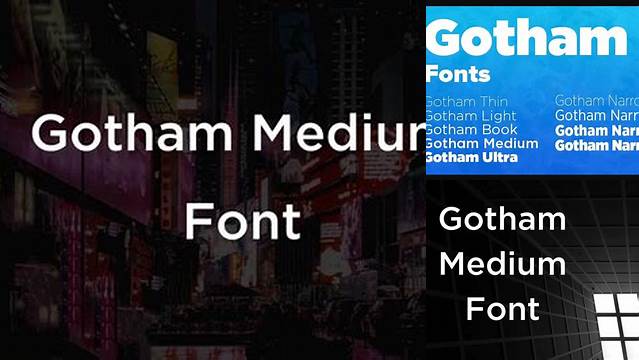
Why Gotham Medium is a Design Superstar
Alright, let's talk about why Gotham Medium is such a big deal. This font is a member of the Gotham family, a geometric sans-serif typeface that's become incredibly popular in the design world. It's loved for its clean lines, balanced proportions, and versatility. Seriously, this font can do it all! From websites and logos to print materials and presentations, Gotham Medium just works. It's one of those fonts that's both modern and timeless, making it a solid choice for a wide range of projects. The medium weight, specifically, strikes a perfect balance between readability and visual impact. It's not too heavy, so it doesn't feel clunky, and it's not too light, so it's easy on the eyes. This makes it ideal for body text, headings, and everything in between. Designers often use Gotham Medium because it is legible at various sizes, ensuring your message comes across clearly, no matter where it's displayed. Its neutral, yet distinctive, character makes it a great choice for branding, allowing your message to stand out without overpowering the design. Also, let's not forget its famous history! Gotham was famously used in the Obama presidential campaign, which definitely boosted its popularity. It's got that cool, trustworthy vibe that appeals to so many people. Gotham's clean lines and modern feel make it a favorite for a wide range of applications, from corporate branding to editorial design. Its timeless design and easy readability make it a top choice for designers looking to create a professional and visually appealing aesthetic. Its versatility allows designers to create consistent and cohesive designs across different mediums. In short, Gotham Medium is a design superstar because it's versatile, legible, and has a killer aesthetic. It's a safe bet for pretty much any project you throw at it! When you choose Gotham Medium, you're choosing a font that speaks volumes without saying too much.
The Versatility of Gotham Medium
So, what makes Gotham Medium so darn versatile? It's all about that perfect balance. The font is designed to be both eye-catching and easy to read. This makes it a fantastic choice for everything from headlines and titles to body text. Its clean lines and simple shapes ensure it looks great at any size, making it adaptable for various uses. You can use it on websites, in print, or in digital documents; it always delivers a crisp and professional look. Because of its neutral tone, Gotham Medium can easily adapt to different design styles. Whether you're working on a minimalist project or something with a bit more flair, this font will fit right in. Its versatility extends beyond just aesthetics; the font family includes a wide range of weights and styles, allowing you to create a consistent look throughout your designs. You could use Gotham Bold for headings, Gotham Medium for subheadings, and Gotham Book for body text. This consistent use of the font family helps your designs look polished and professional. The font's neutral nature lets your content and message take center stage, making it ideal for businesses and brands that want to emphasize clarity and professionalism. Also, remember its strong presence in branding and corporate identity. It's widely used by companies to give off a modern, reliable image. Because of its widespread use, your audience is likely already familiar with this font, creating a sense of trust and recognition. The font's adaptability lets you use it in diverse media, from business cards to billboards, and it will always look great. Its ability to work well in both digital and print forms makes it a design asset. With Gotham Medium, you're not just getting a font; you're getting a design tool that enhances readability while still appearing modern and clean. This makes it an invaluable asset to any designer looking for a reliable, versatile font.